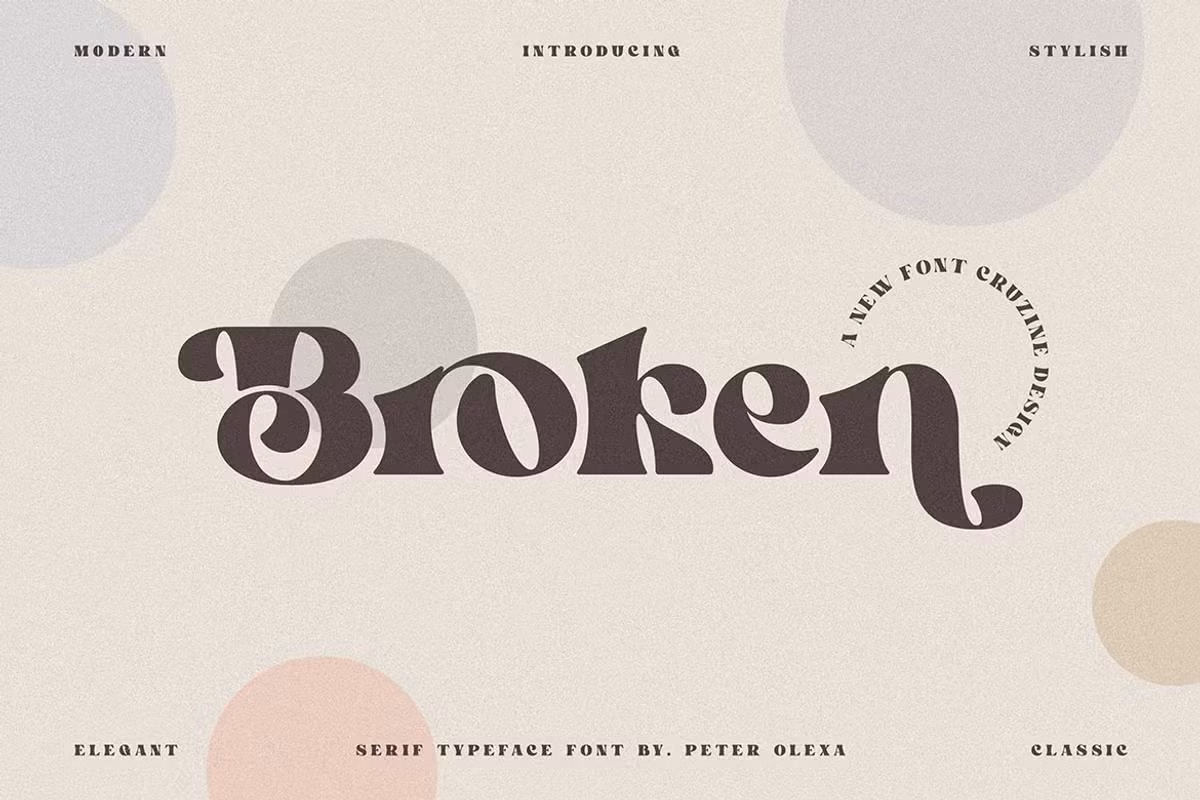
Broken - Bold Serif Font Free Download
Make a bold and striking statement with Broken - Bold Serif Font Free Download. This powerful serif typeface features strong, sharp letterforms and high contrast, making it perfect for logos, branding, headlines, posters, and any design that requires a commanding presence.
Broken combines bold, traditional serif elements with modern design to create a striking visual impact. It includes uppercase and lowercase letters, numerals, punctuation, and multilingual support, offering you the versatility to experiment with different layouts and compositions.